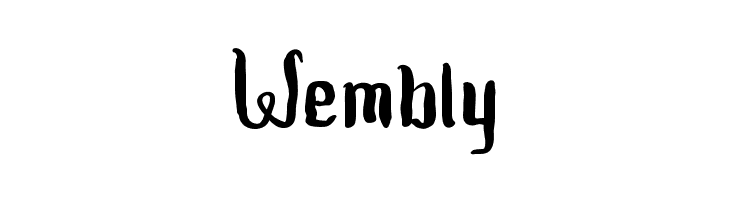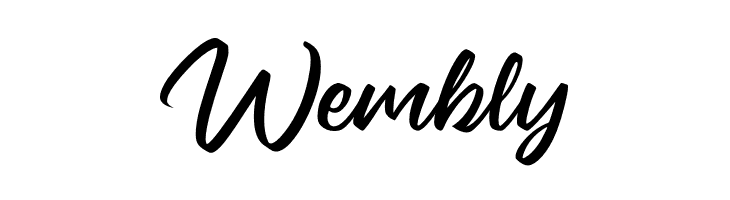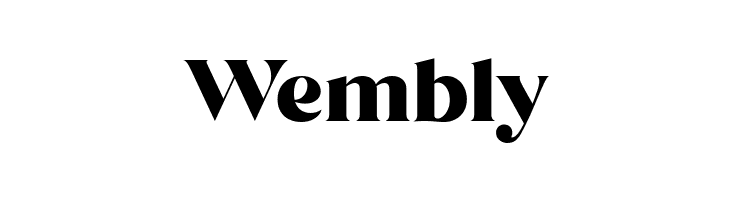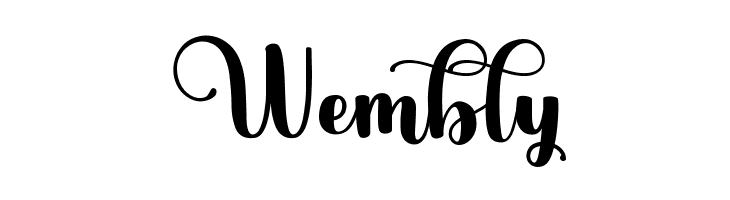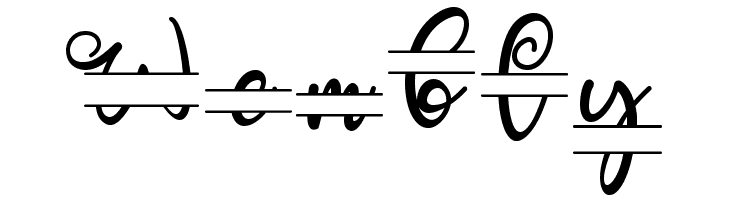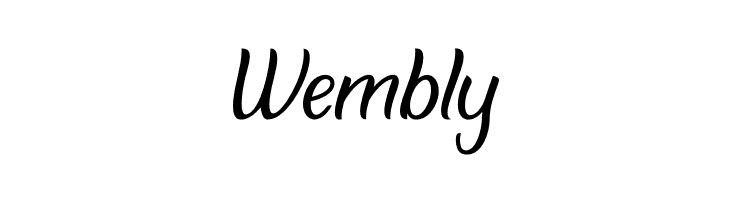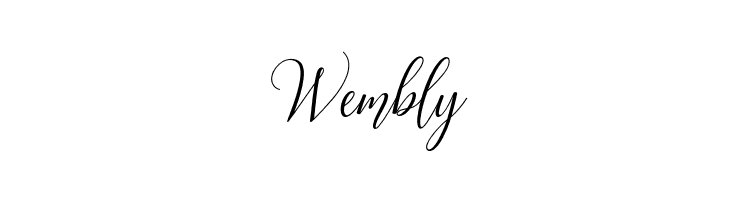
A dynamic and elegant script font with fluid strokes.
A dynamic, flowing script font with a handwritten, artistic style.
A modern, geometric font with clean lines and uniform stroke widths.
An elegant, decorative font with intricate swirls and flourishes.
A playful, flowing script font with connected characters and smooth curves.
A playful, connected script font with consistent stroke width and whimsical curves.
A bold, geometric font with a futuristic and modern design.
A dynamic and expressive script font with fluid, cursive strokes.
An elegant, flowing script font with a handwritten style.
An elegant script font with flowing, cursive letterforms and a sophisticated flair.
A graceful and elegant script font with flowing cursive letterforms.
A modern, expressive handwritten font with elegant, elongated strokes.
A decorative script font with elegant loops and flourishes.
A bold, dynamic script font with a handwritten feel.
A playful, artistic handwritten font with fluid, connected letterforms.
A futuristic, geometric font with double lines and angular shapes.
A geometric, minimalist font with thin lines and sharp angles, offering a modern and futuristic look.
A geometric, hollow, and bold font with angular lines and a futuristic style.
A futuristic, geometric font with a striped, angular design.
A geometric, angular font with a futuristic and modern aesthetic.
A futuristic, geometric font with rounded edges and consistent line thickness.
A futuristic, geometric font with thin lines and sharp angles.
A bold, artistic font with a hand-drawn, whimsical style.
A cursive, handwritten font with elegant, flowing strokes.
A dynamic and flowing script font with elegant, cursive letterforms.
A bold, flowing script font with elegant, cursive letterforms.
An elegant script font with intricate swirls and loops, perfect for artistic projects.
A bold, high-contrast serif font with a modern twist.
A graceful script font with flowing, interconnected letters and bold numerals.
A geometric font featuring astrological symbols and celestial icons.
An elegant, high-contrast font with unique curves and a modern flair.
An elegant serif typeface with high contrast and Art Nouveau influences.